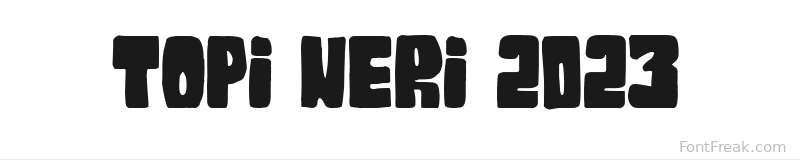
Topi Neri 2023
Topi Neri 2023 by woodcutter Manero is a striking display font that combines a playful aesthetic with bold typography. As a unique addition to the world of typefaces, this font is characterized by its rounded, thick strokes and a sturdy presence that captures attention. The overall stroke weight is consistent, providing a harmonious visual balance while maintaining a slight contrast that enhances legibility. The spacing is thoughtfully designed to ensure that each letter stands out, making it suitable for impactful headlines and creative projects.
This font is ideal for a variety of use cases, including eye-catching movie posters that require a strong visual statement, vibrant restaurant menus that invite diners in, and engaging promotional materials for events. Its playful nature also makes it a perfect choice for children's book covers or educational materials aimed at young audiences. Additionally, graphic designers looking to create unique branding elements will find Topi Neri 2023 an excellent fit for logos and merchandise designs.
Targeting a diverse audience, Topi Neri 2023 appeals to graphic designers, small business owners, and content creators who seek to make a memorable impact with their visual communications. The font’s unique character and versatility make it a valuable asset for anyone looking to enhance their design projects.
What truly sets Topi Neri 2023 apart is its distinctive blend of fun and functionality. It captures a contemporary vibe while remaining approachable, making it suitable for both casual and professional applications. For those interested in exploring this captivating typeface, the Topi Neri 2023 font free download offers a wonderful opportunity to elevate your design work and engage your audience effectively.